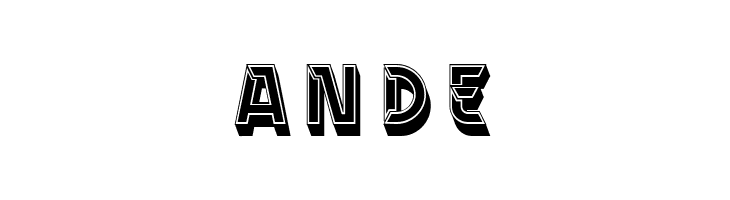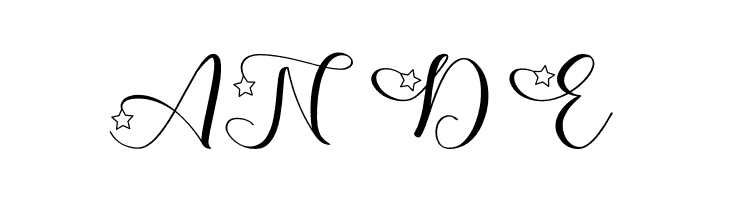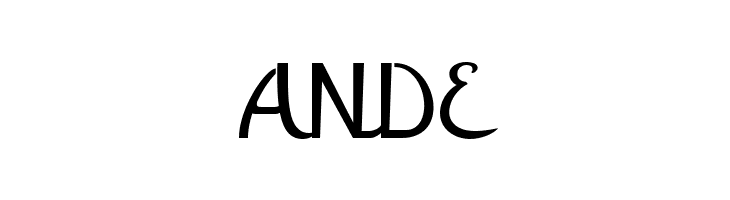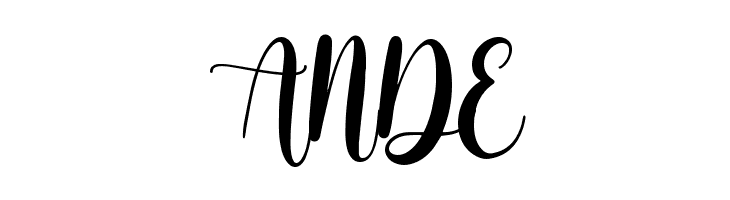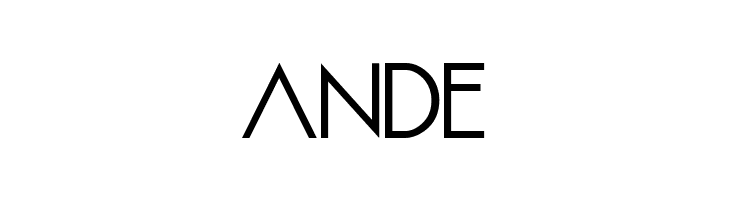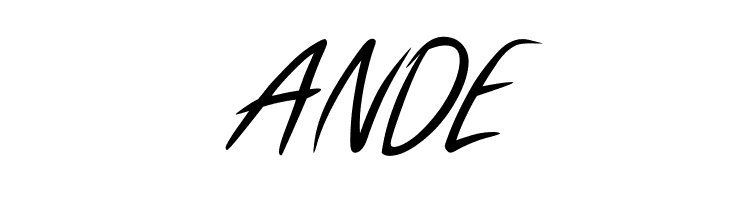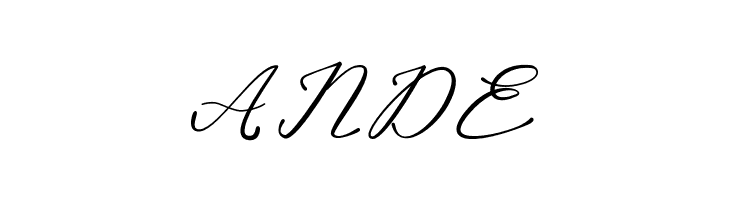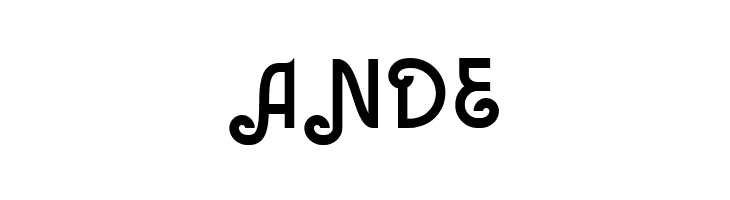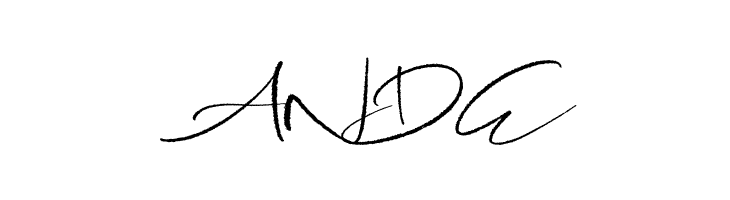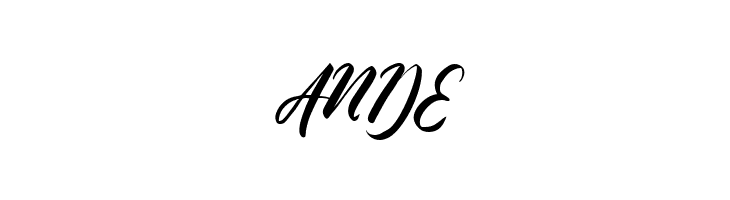
A classic serif font with modern elegance and balanced weight.
A classic serif font with elegant curves and balanced proportions.
A playful, flowing script font with smooth, cursive letterforms.
A dynamic and elegant script font with fluid, cursive strokes.
A flowing, cursive script font with elegant, connected strokes.
An elegant, cursive handwritten font with flowing, decorative strokes.
An elegant, flowing script font with intricate loops and a sophisticated style.
A bold, italic grunge font with a distressed texture and high contrast.
A bold, italicized grunge font with a distressed, vintage look.
A modern and artistic font with flowing curves and sharp edges.
An elegant script font with fluid, cursive strokes and a sophisticated appearance.
A lively, handwritten font with fluid strokes and artistic flair.
A modern, geometric sans-serif font with clean lines and high legibility.
A decorative and modern font with whimsical uppercase and bold lowercase letters.
A dynamic, elegant script font with flowing, cursive elements.
A lively and expressive script font with flowing, cursive letterforms.
A modern, cursive font with elegant, flowing letterforms and artistic flourishes.
A flowing, elegant script font with artistic, cursive strokes.
An elegant script font with whimsical flourishes and decorative elements.
A lively and elegant script font with fluid, sweeping strokes.
A flowing, elegant script font with smooth, cursive strokes.
A bold, geometric font with a filled interior and three-dimensional outline.
A bold, 3D italic font with strong geometric shapes and a modern look.
A bold, three-dimensional font with a shadow effect and geometric design.
A lively, handwritten script font with elegant, flowing characters.
A lively, flowing script font with elegant, cursive letterforms.
A bold, dynamic script font with a modern, handwritten style.
A modern sans-serif font with clean lines and excellent readability.
A lively, cursive font with a handwritten, artistic style.
A lively, cursive script font with a playful, handwritten style.
A playful, whimsical font with tall, narrow letters and rounded edges.
A lively handwritten font with smooth, slanted strokes and a casual elegance.